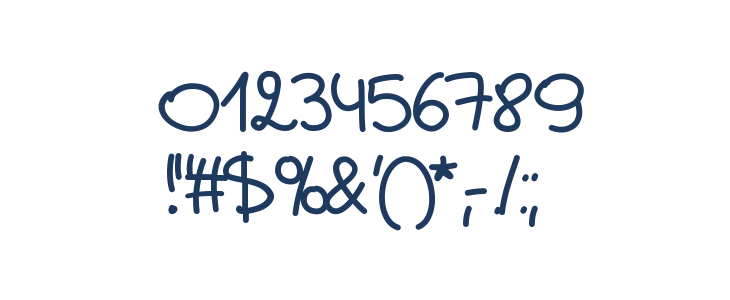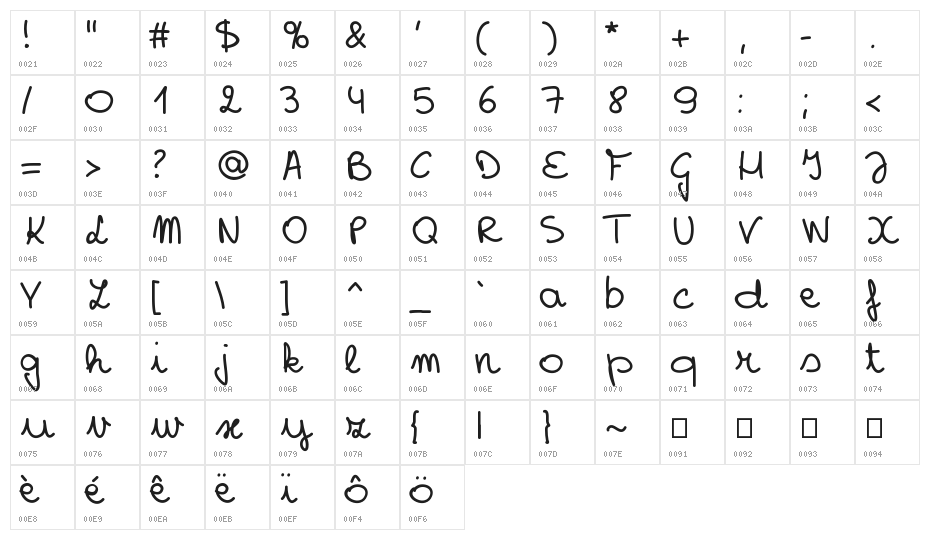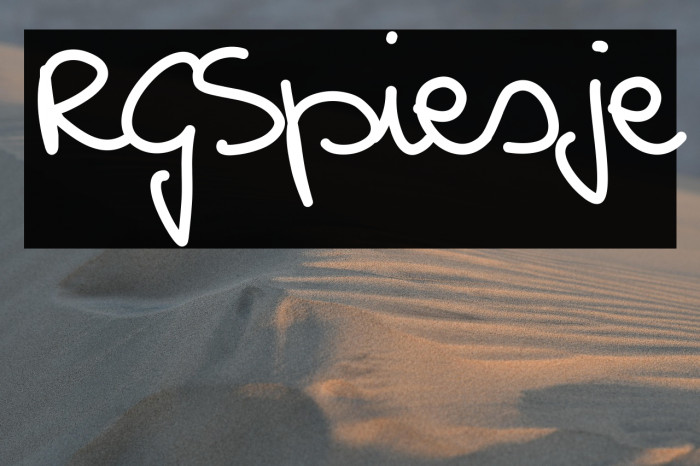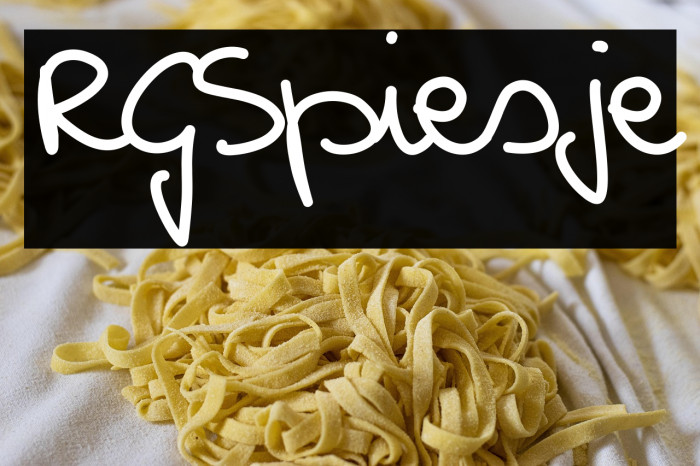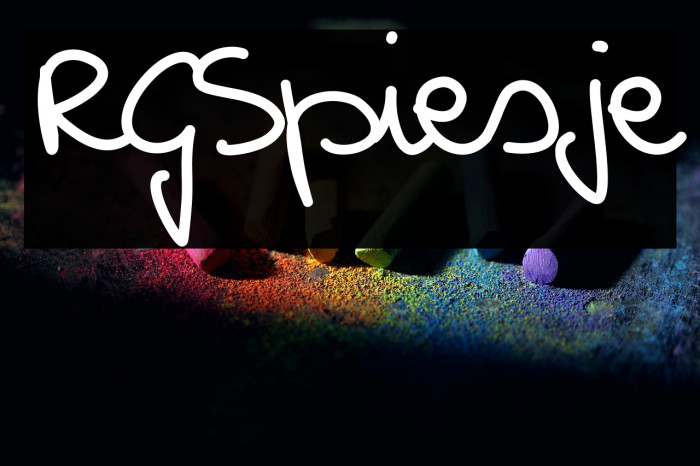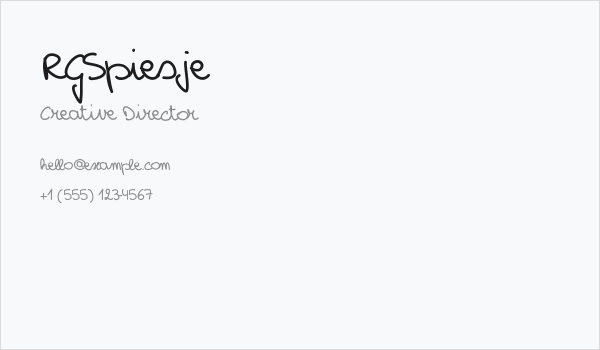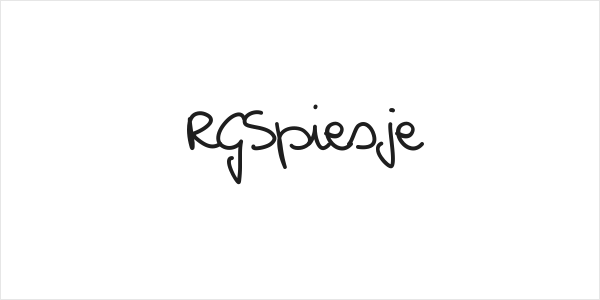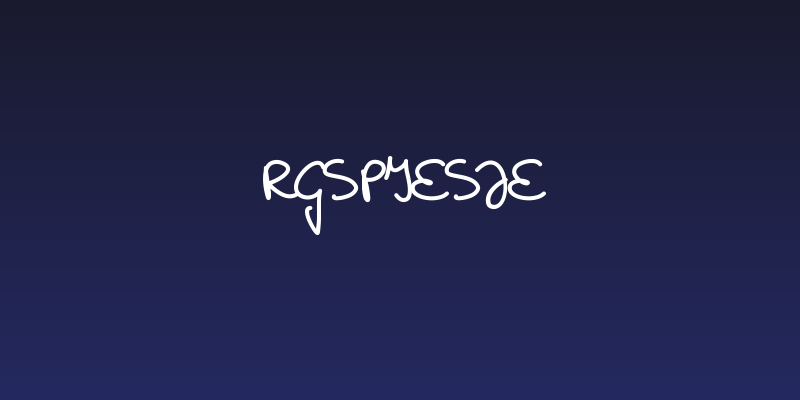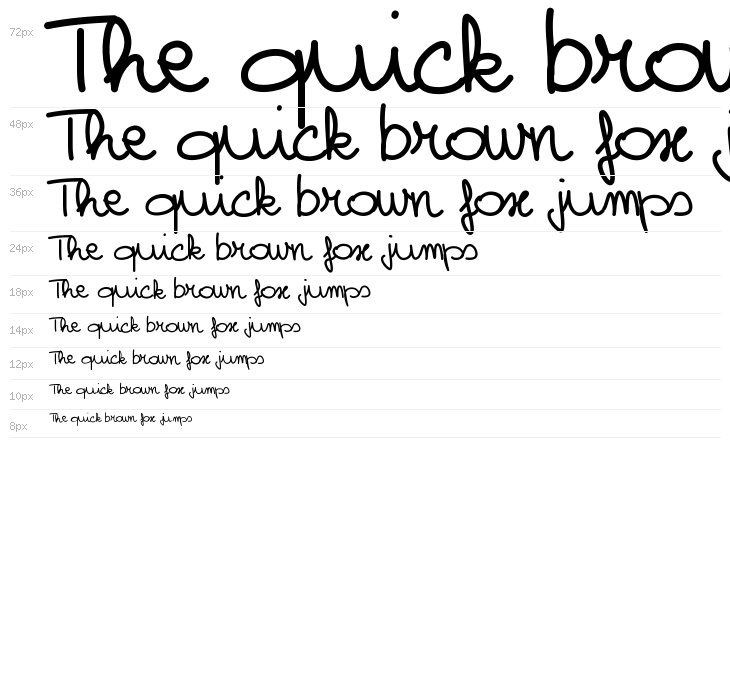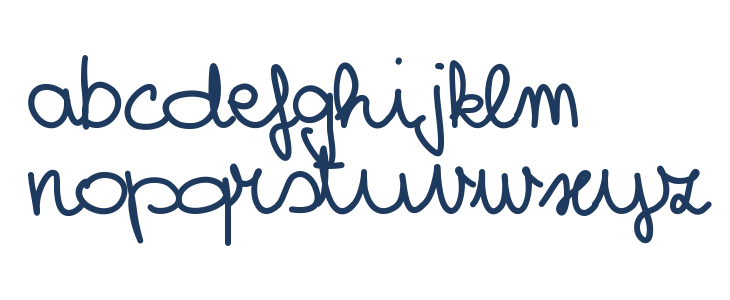
RGSpiesje Font
RGSpiesje Description
This font features a playful and casual handwritten style, characterized by its smooth, flowing curves and slightly irregular letterforms. The uppercase and lowercase letters maintain a consistent stroke width, giving it a uniform appearance. The numerals and special characters follow the same playful aesthetic, making the font versatile for various informal applications. Its overall look is friendly and approachable, with a touch of whimsy that adds personality to any design. The font's legibility is maintained despite its informal style, making it suitable for both digital and print media.
| Use Case | Logos, Headlines, Informal Text |
| Proposed Projects | Ideal for greeting cards, children's books, casual branding, and social media graphics. |